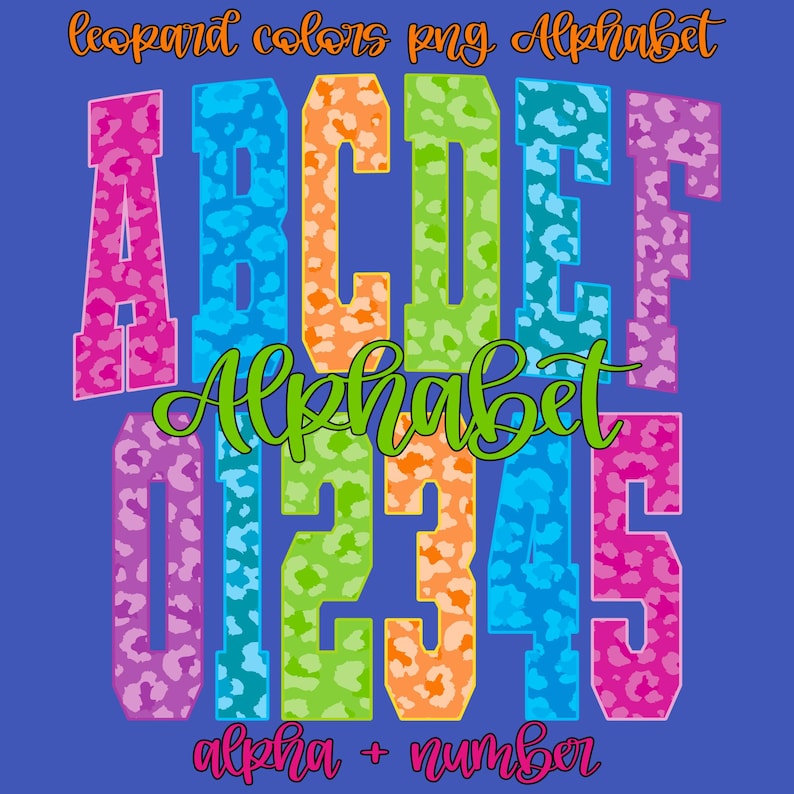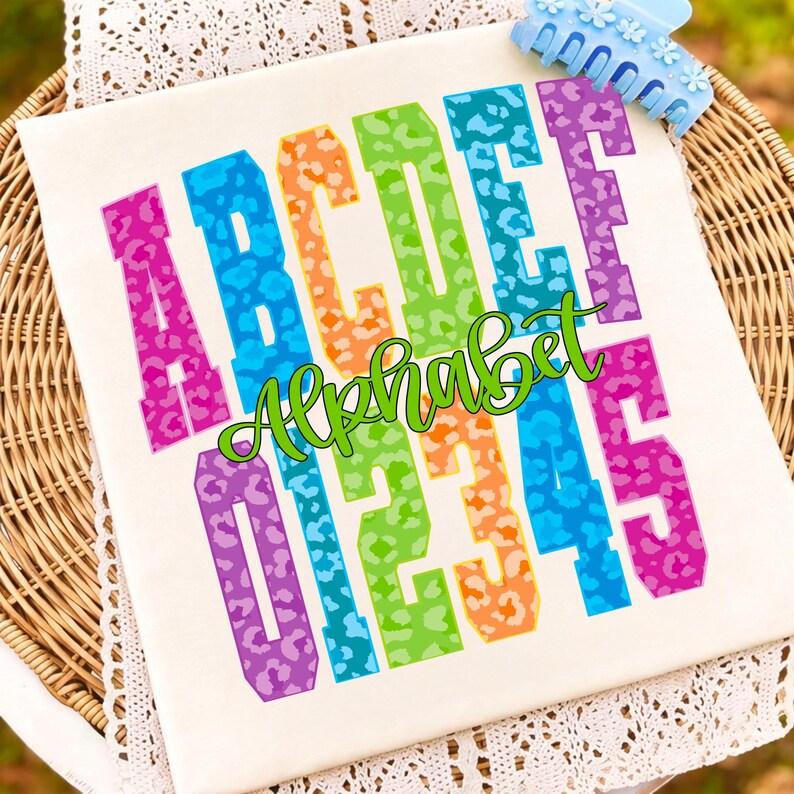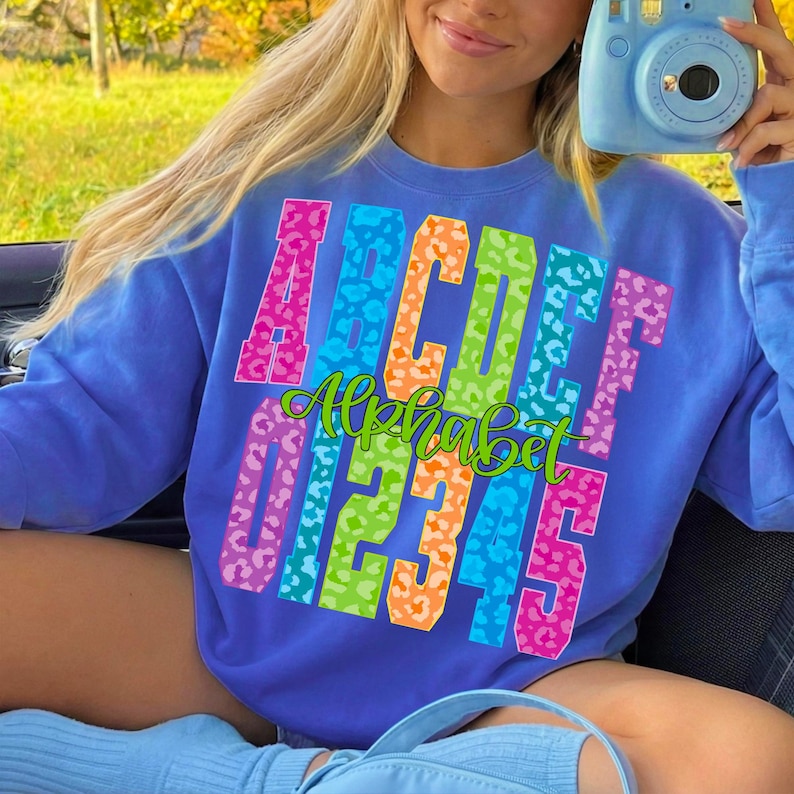
DIY Game Day Style: Create Custom Apparel with the Preppy Neon Leopard Varsity Alphabet PNG Bundle
Are you ready to elevate your crafting game and stand out this season? Whether you are preparing for a thrilling sports game day, designing spirited college gear, or simply looking to add a splash of retro fun to your wardrobe, custom apparel is the ultimate way to express your unique style. The preppy aesthetic is making a massive comeback, and nothing captures this trend quite like bold patterns and vibrant colors.
Enter the Preppy Neon Leopard Varsity Alphabet PNG Bundle—a must-have digital design pack that combines classic athletic varsity block fonts with a playful, multi-color neon leopard animal print. This bundle is designed to help crafters and DIY enthusiasts easily create eye-catching designs that pop.
High-Quality Design Features for Flawless Sublimation and DTF Projects
The standout feature of this bundle is its striking design. It seamlessly blends the classic, structured look of varsity block lettering with a wild, multi-color neon leopard pattern. This unique aesthetic is perfect for adding a modern, preppy twist to traditional sports and school spirit designs. Plus, because it is an instant digital download, you can skip the shipping wait and start designing your next masterpiece immediately.
Infinite DIY Crafting Possibilities for Game Day and Beyond
One of the best things about this varsity alphabet bundle is its incredible versatility. It is the perfect tool for creating custom apparel and personalized gifts that people will actually want to wear and use. Think adorable custom t-shirts for summer festivals, cozy festive hoodies for chilly game days, and matching sweatshirts for your entire friend group.
But don’t stop at clothing! This design set is also ideal for personalizing everyday items like mugs, tumblers, tote bags, and even home decor like custom wall art for dorm rooms. Crafters who love vibrant, playful designs will find endless inspiration in these neon hues. Whether you are crafting for your personal collection, making gifts for loved ones, or creating physical products to sell in your own shop, this alphabet bundle provides the professional-grade assets you need to succeed.
Start Designing Your Custom Creations Today